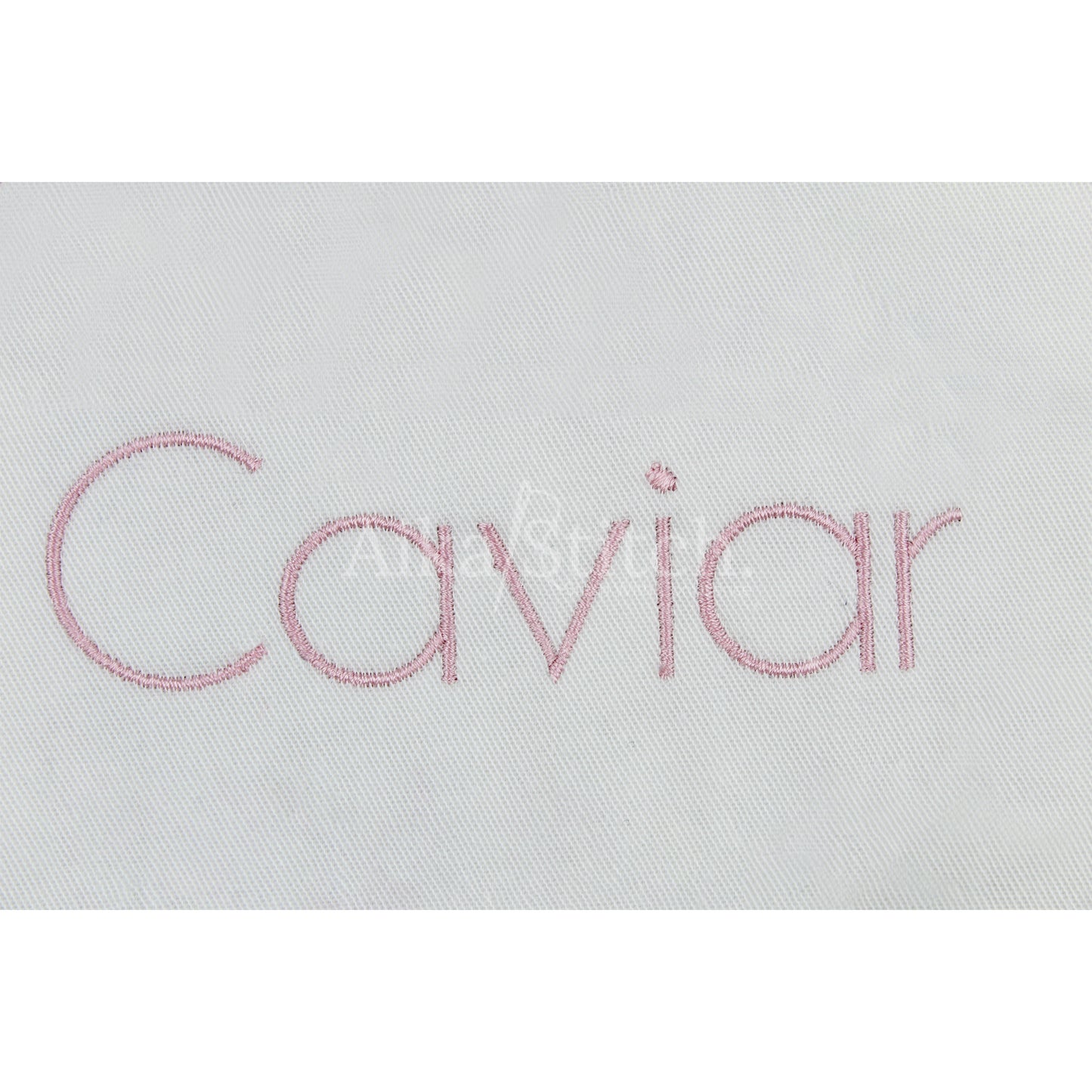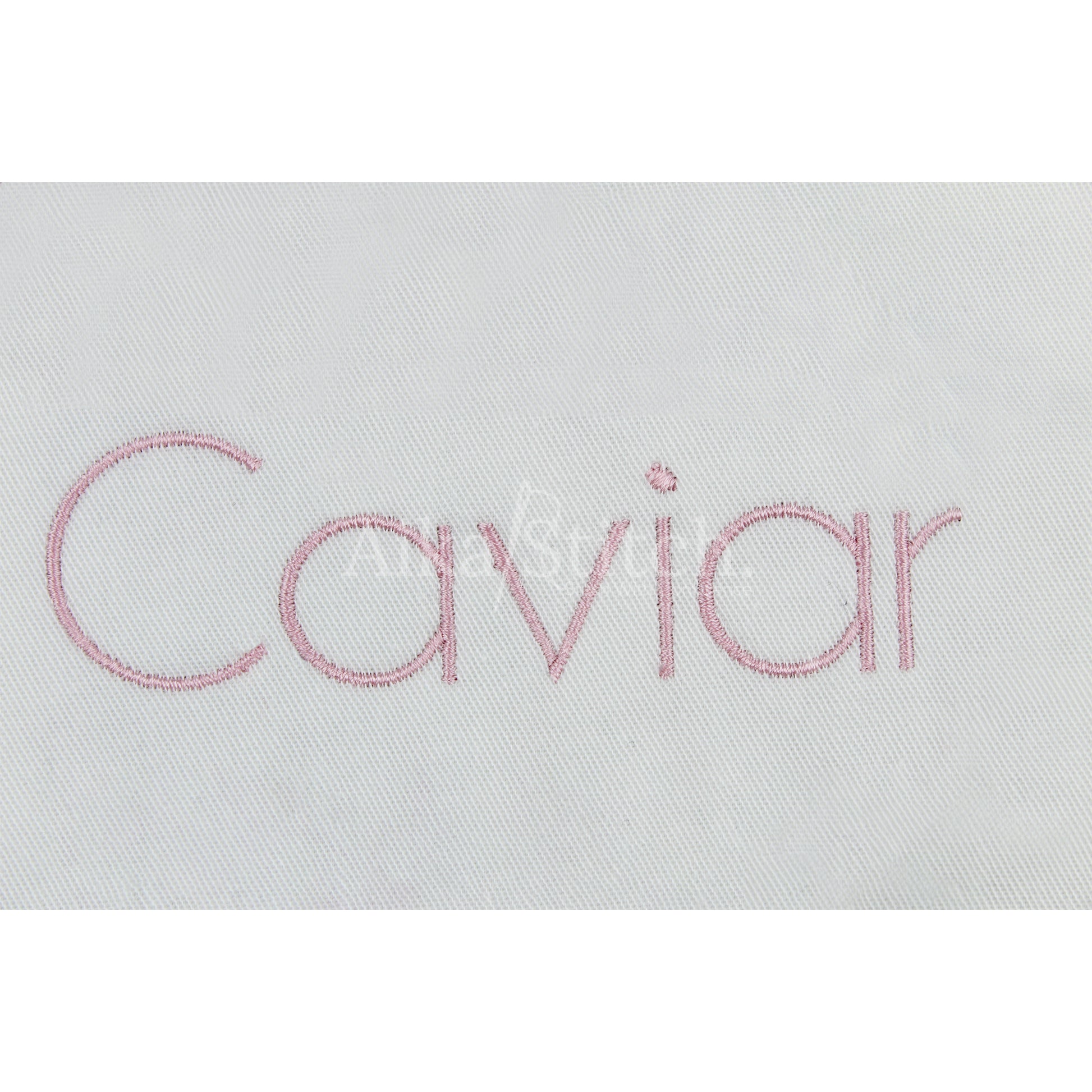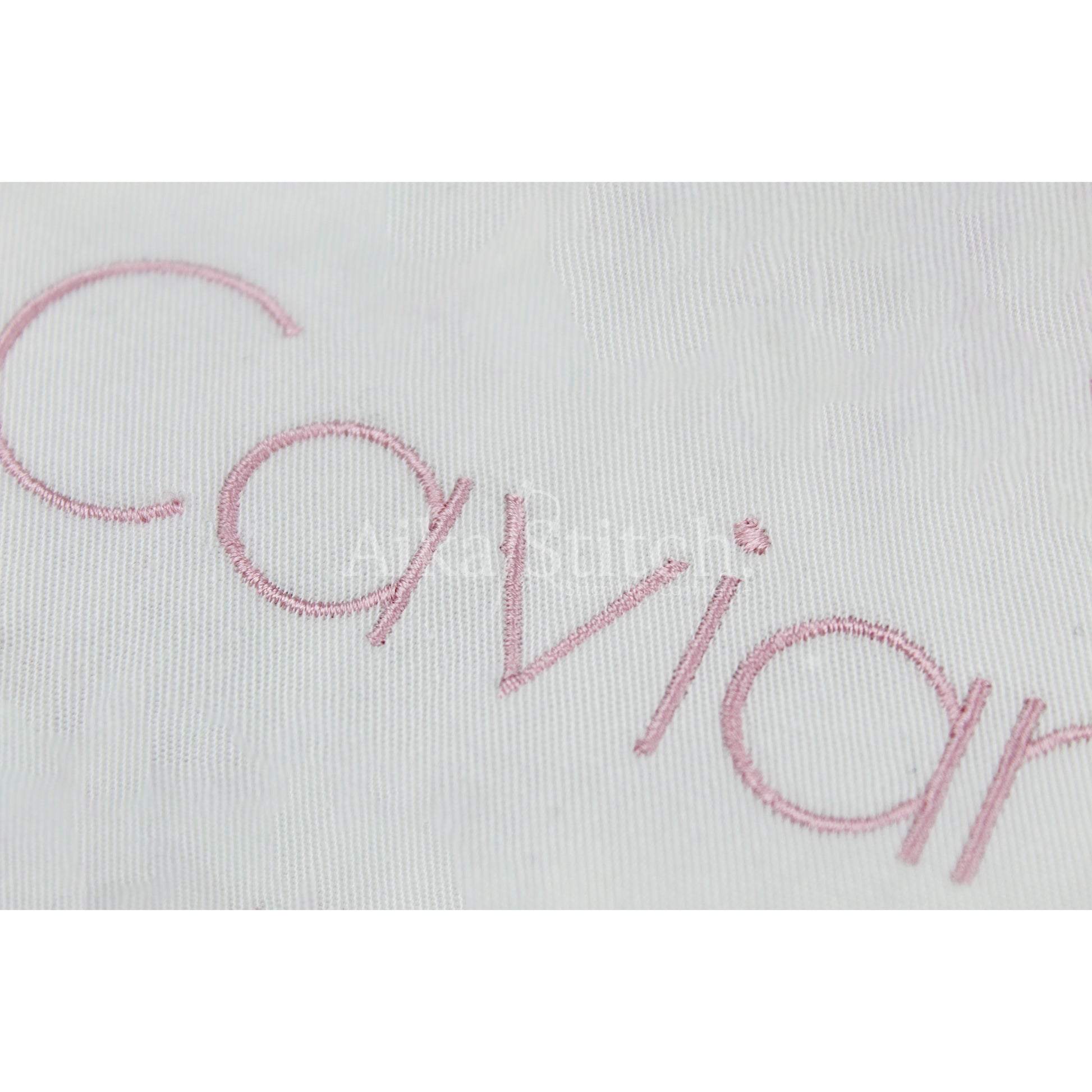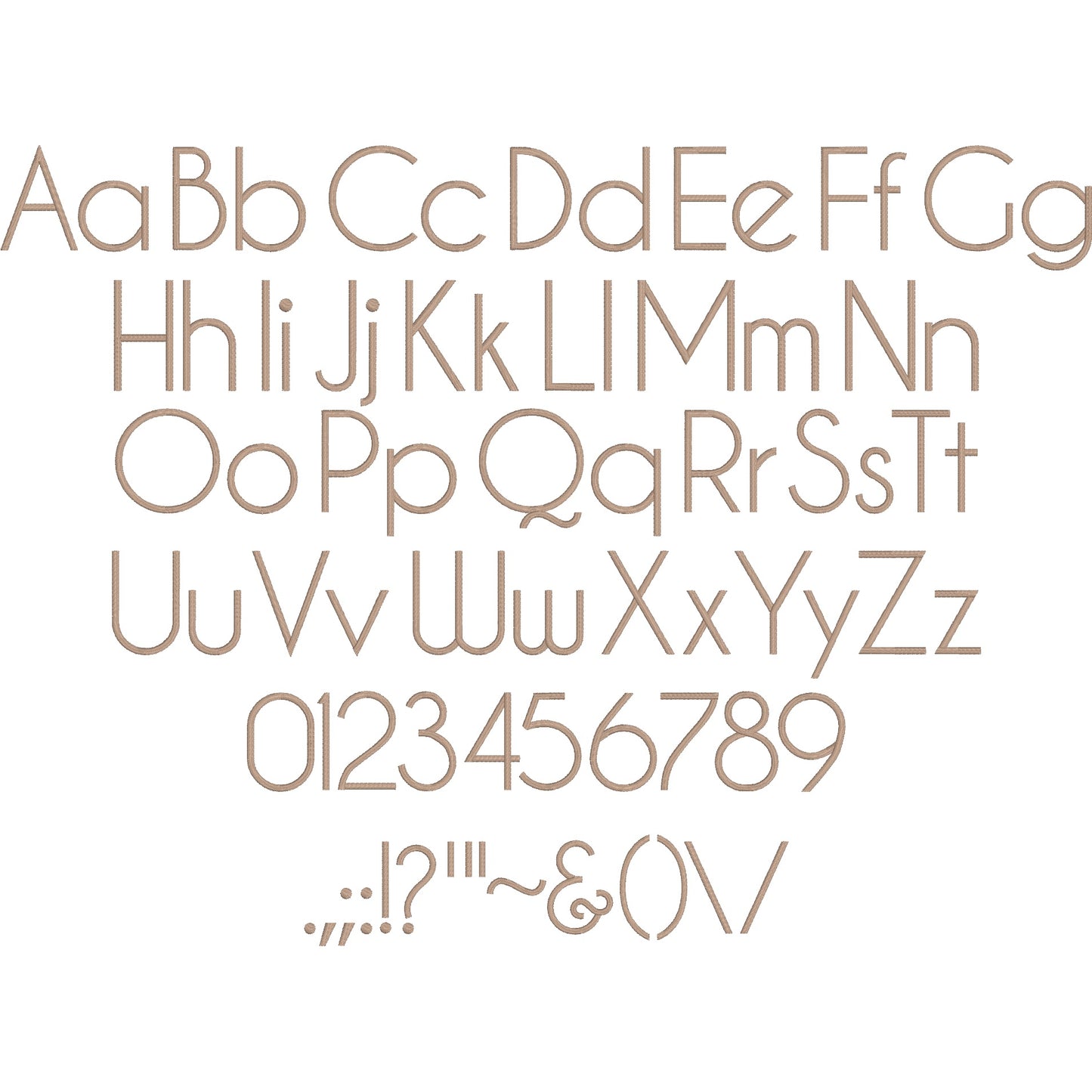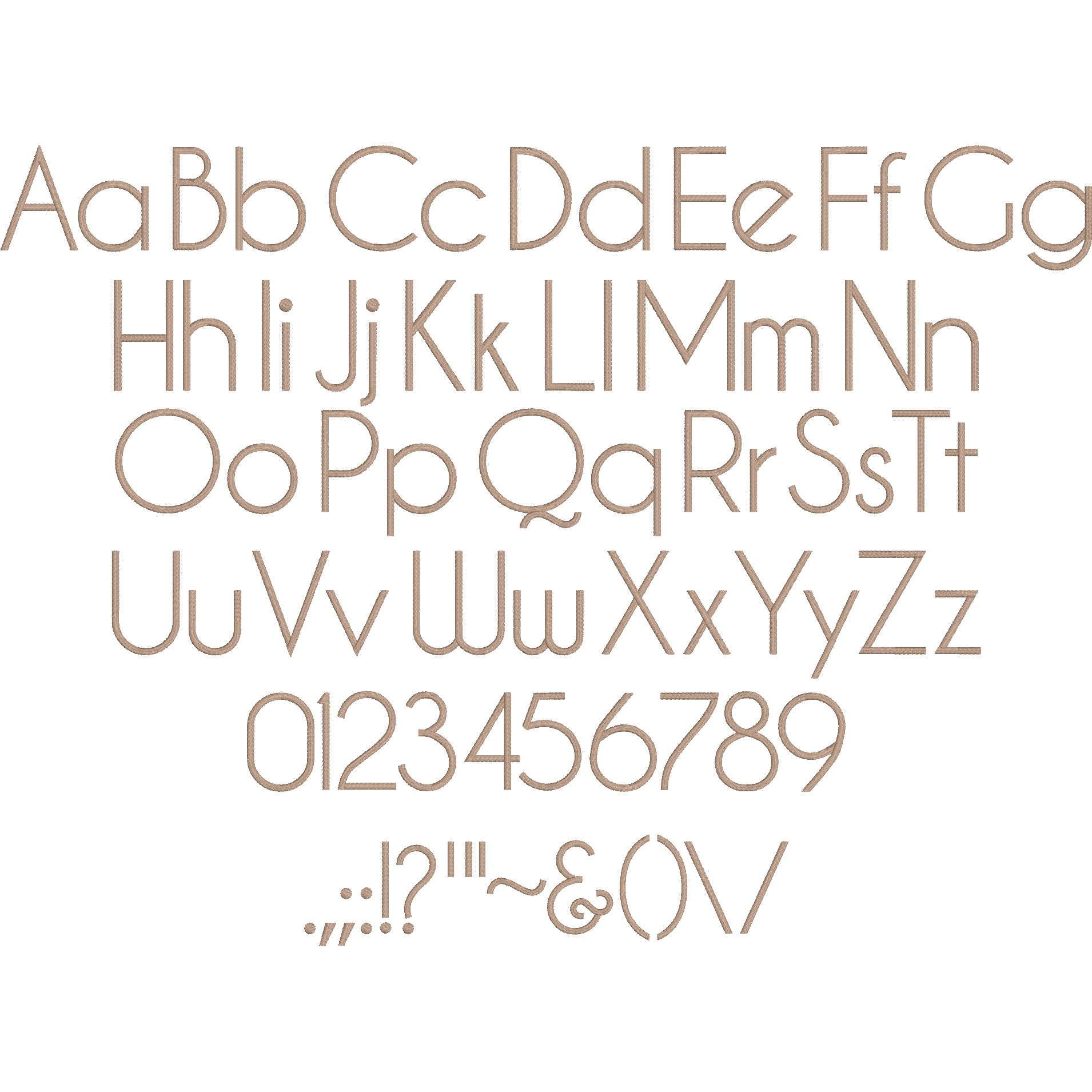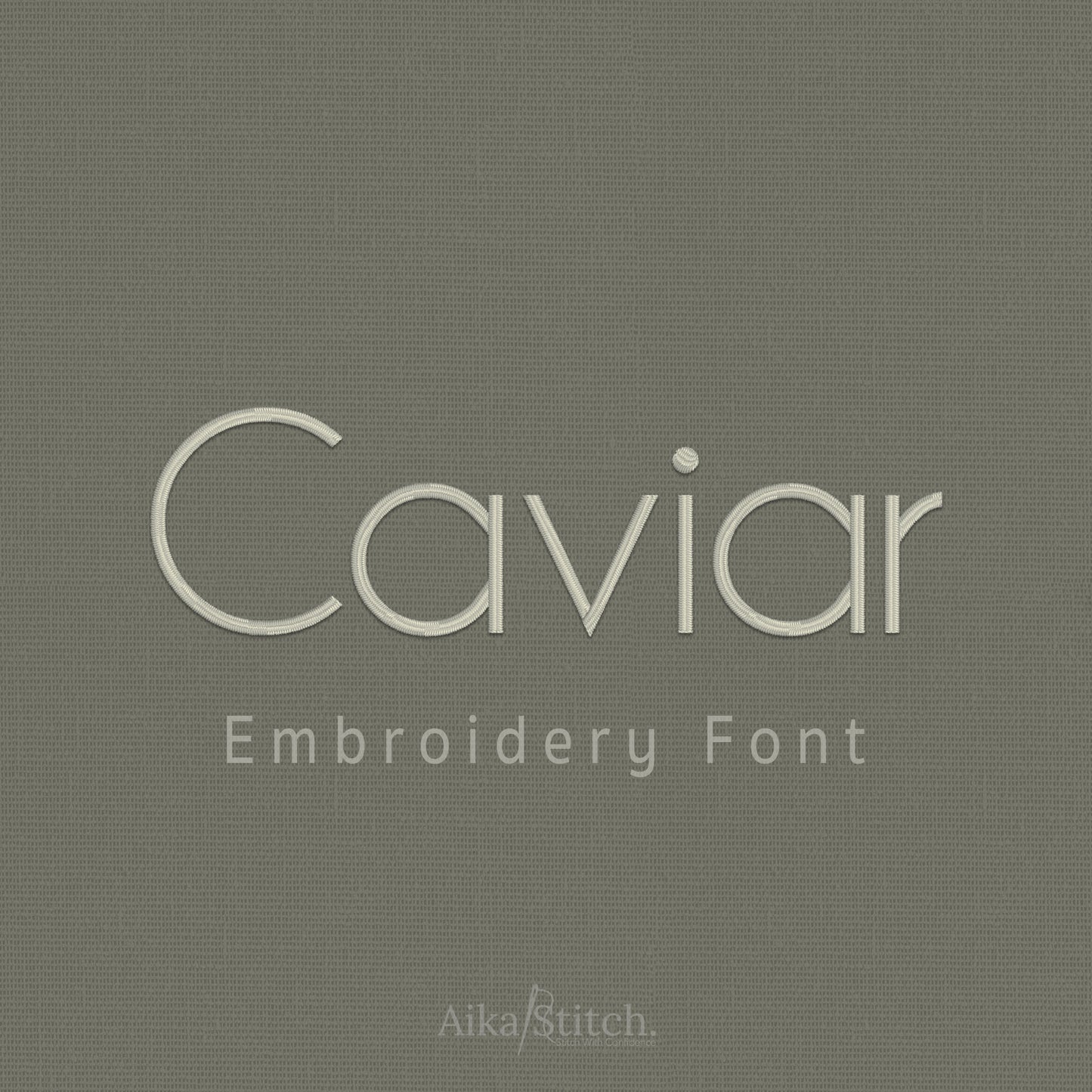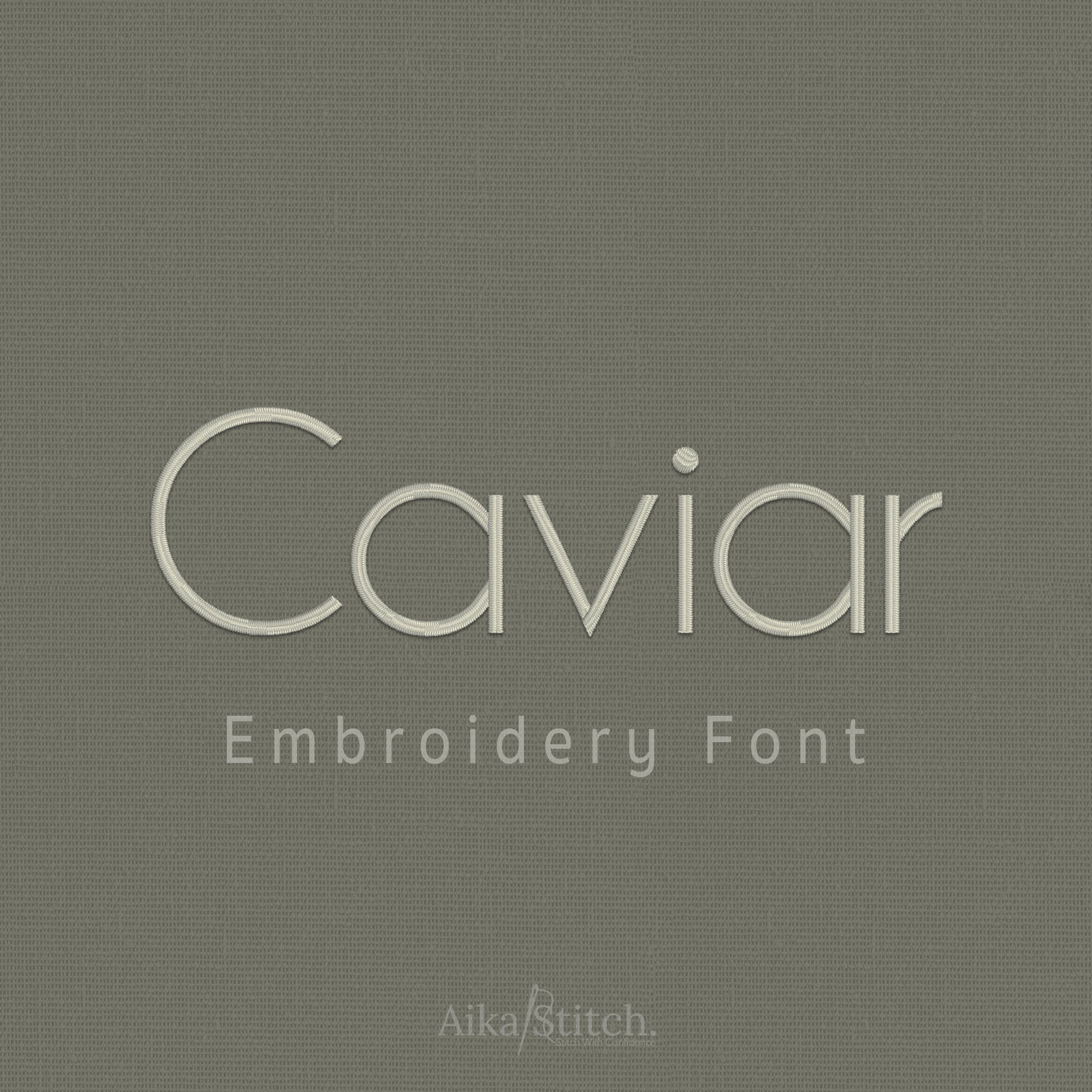
Caviar Basic Modern Embroidery Font
Caviar is a Basic Modern machine embroidery font featuring beautiful satin stitch lettering. Perfect for shirts, towels, hats, baby gifts, monograms, and small business embroidery projects.